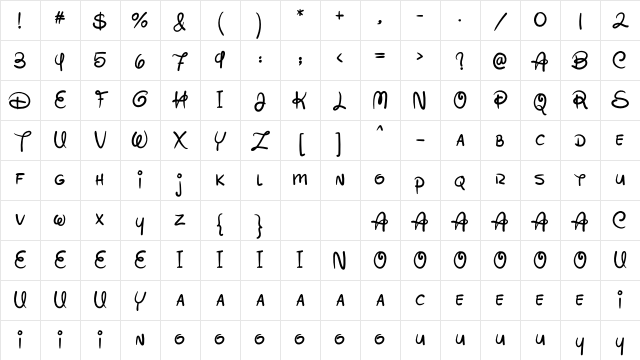
Winter Is Coming Regular
Design Context for Winter Is Coming
Winter Is Coming is a composed and adaptable typeface that performs quietly and consistently across a wide range of design contexts.